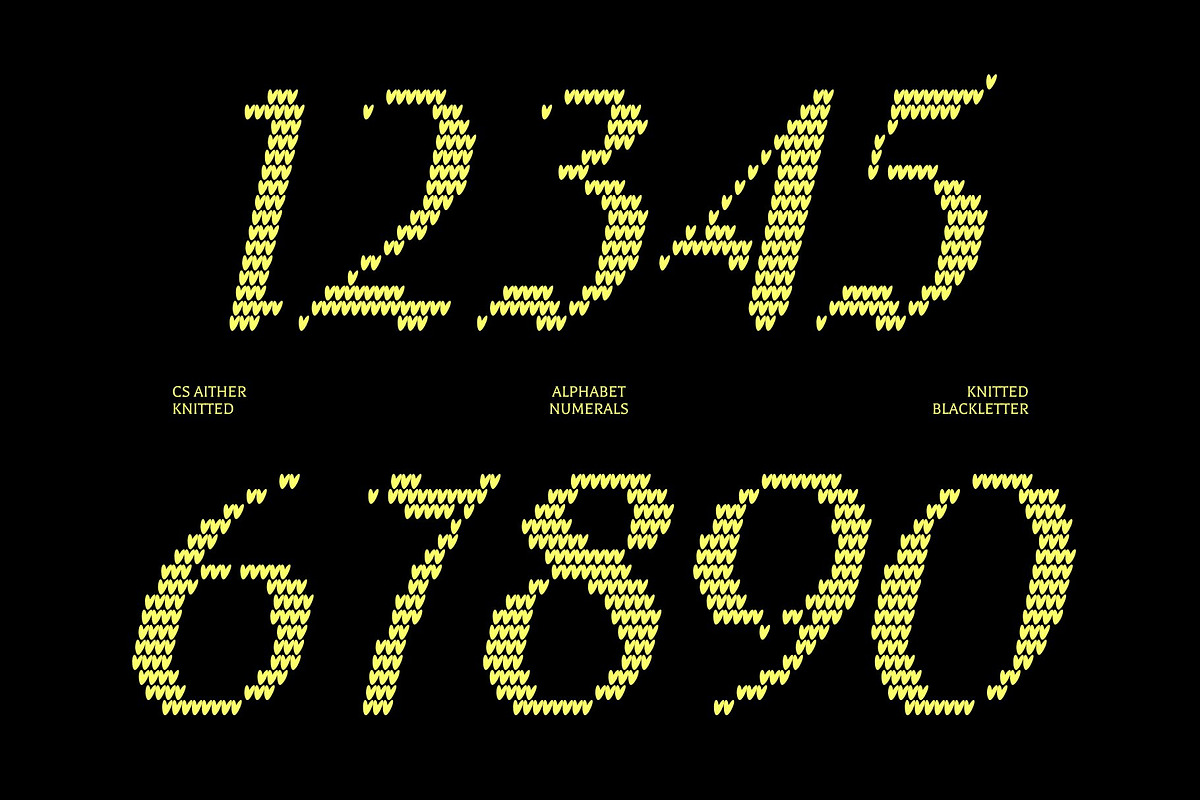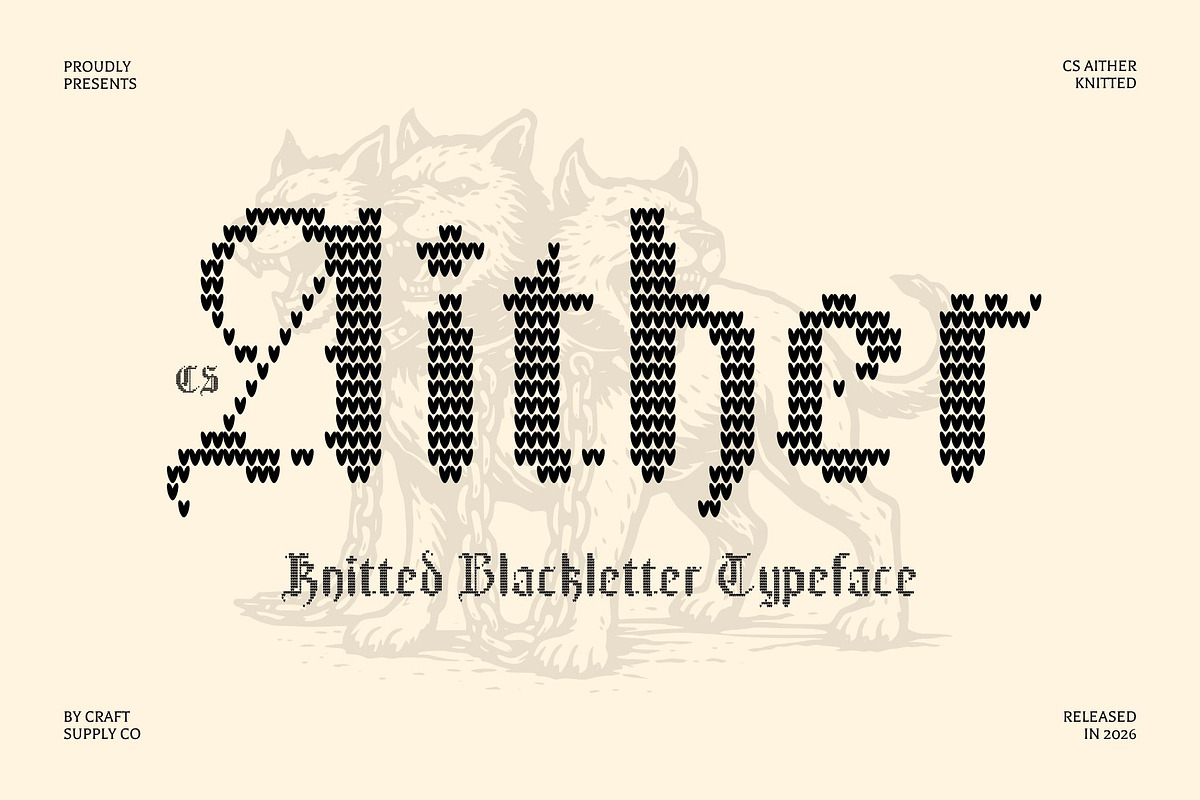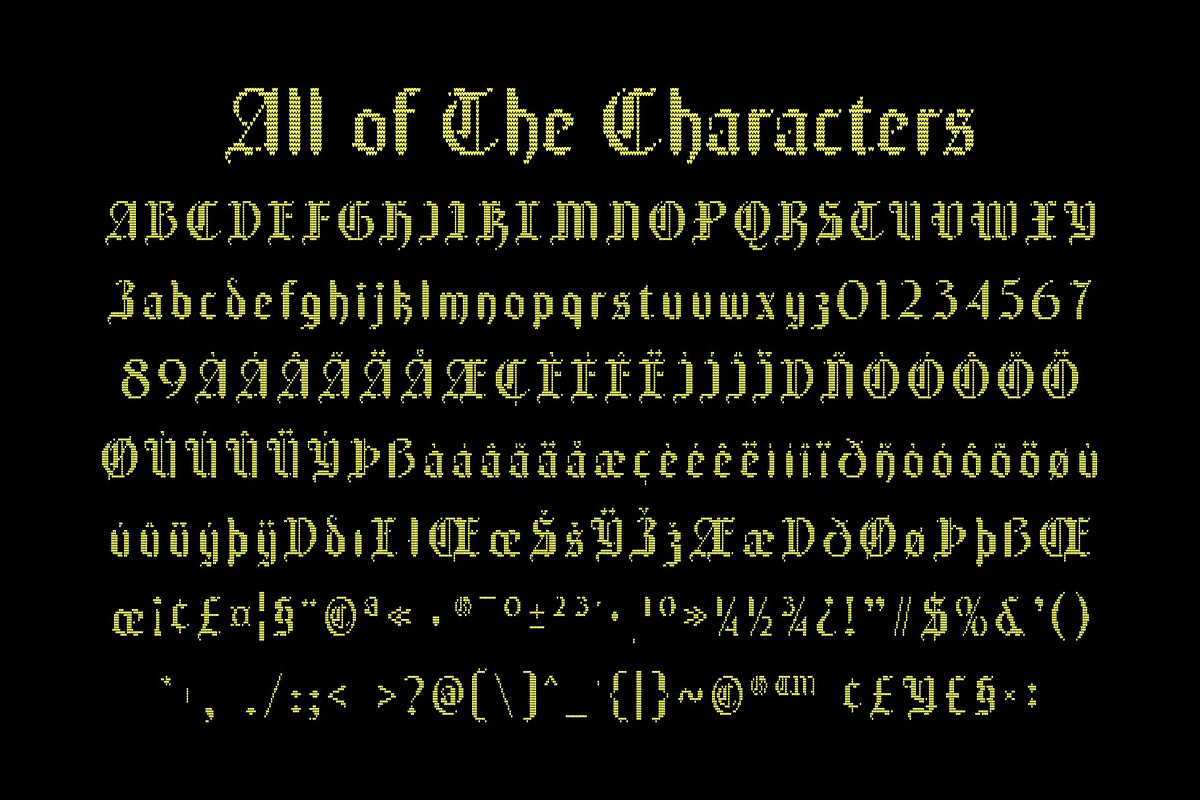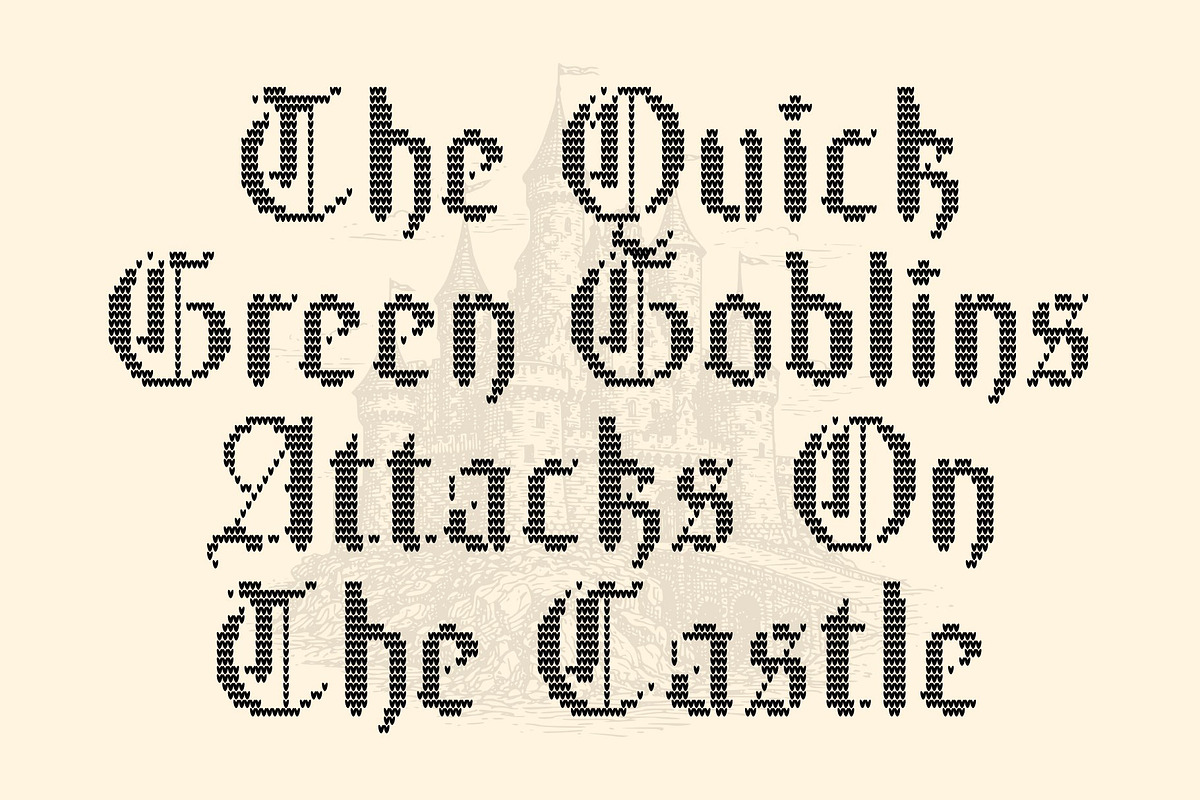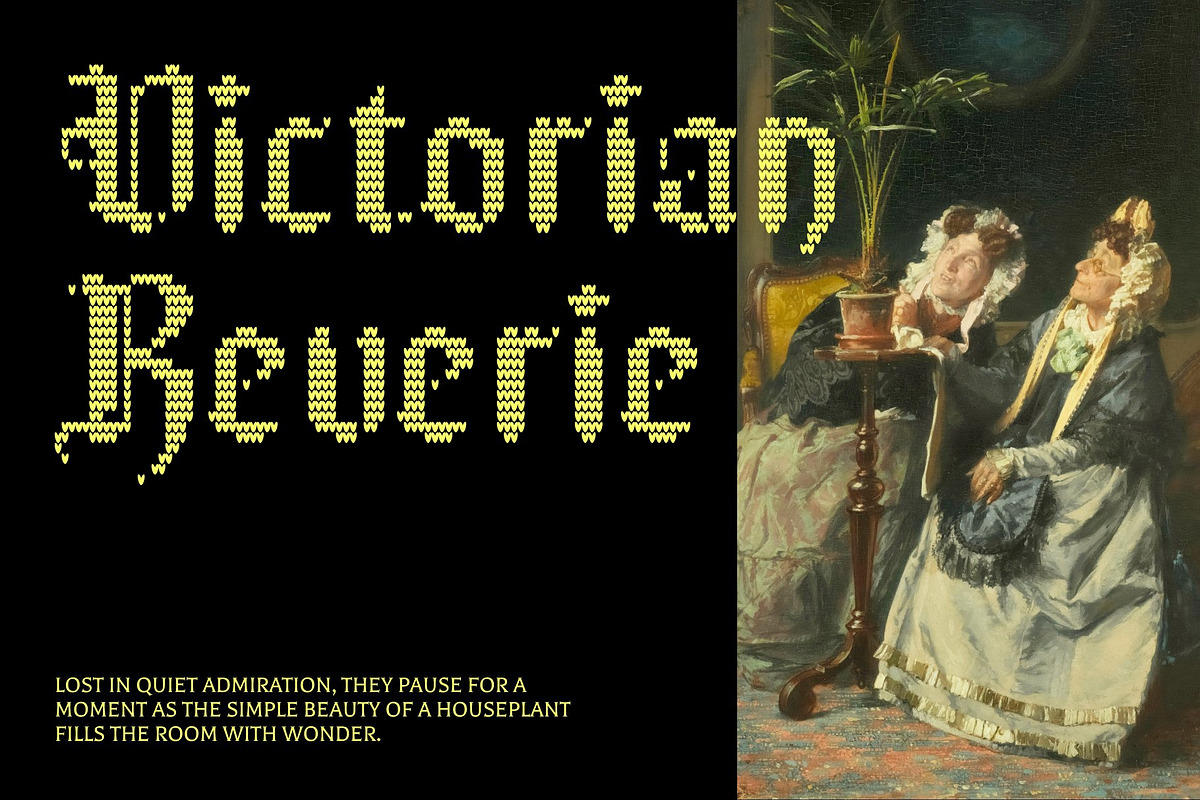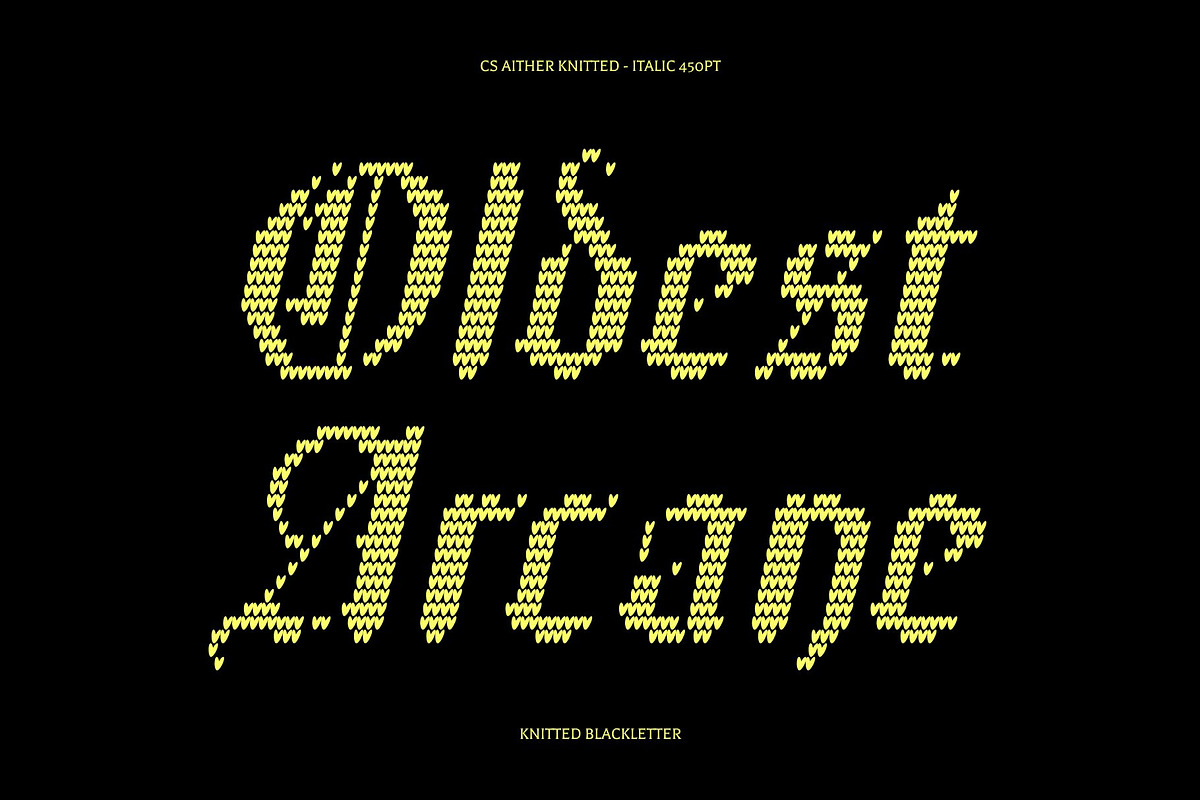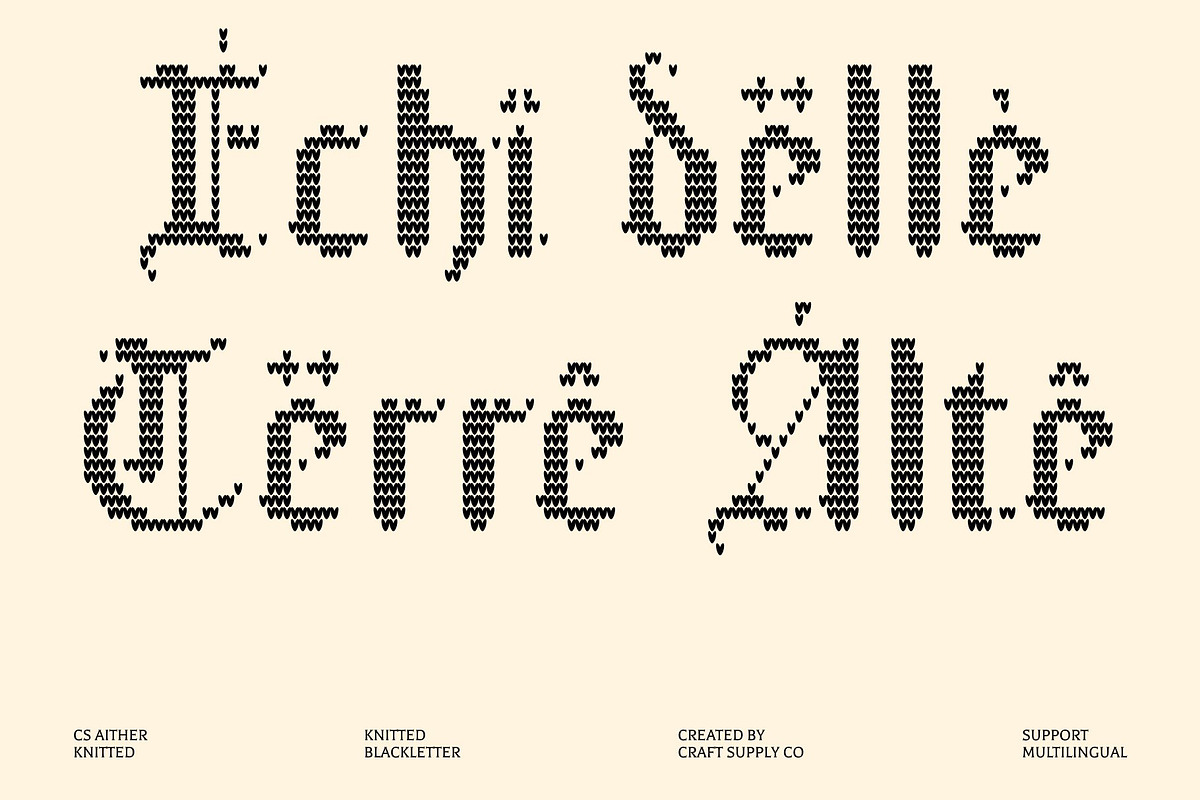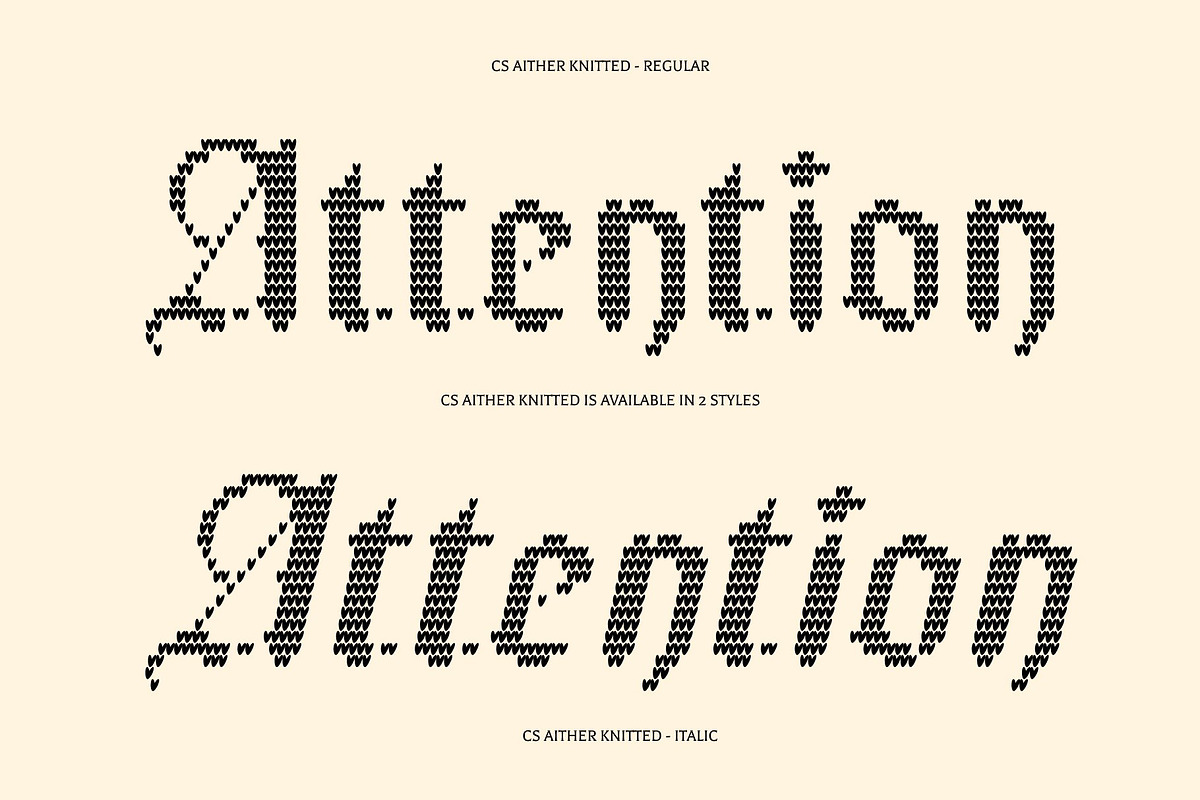
CS Aither Knitted
CS Aither Knitted – Blackletter Display Font: Where Gothic Heritage Meets Cozy Handmade Texture
Iconic Gothic Style with Historic Character This font is a distinguished display font crafted in the iconic Blackletter style, often known as Gothic or Old English. Featuring dramatic strokes, sharp details, and ornate letterforms, it captures the grandeur and craftsmanship of traditional medieval typography. Its bold and decorative appearance creates a strong visual presence filled with history, elegance, and character.
Knitted Effect with Warm Textile Texture This font is designed to resemble the texture of woven yarn found in sweaters, scarves, and handcrafted knitwear. Inspired by the looped construction of knitted fabric, this textured treatment adds warmth, softness, and a handcrafted quality to the bold Blackletter forms.
Traditional Craftsmanship Meets Handmade Charm This font creates a unique visual identity that bridges classic artistry and modern handmade aesthetics. Its ornate forms evoke heritage and authenticity, while the knitted texture introduces a welcoming and creative touch that makes designs feel more personal and memorable.
Perfect for Holiday, Handmade, and Craft-Inspired Designs Suitable for Christmas and holiday posters, handmade packaging, knitting and crochet brands, greeting cards, craft-inspired designs, seasonal campaigns and creative visual identities. Its distinctive knitted texture and Gothic character make it ideal for logos, headlines, titles, and display typography that seek to communicate tradition, craftsmanship, and warmth.
CS Aither Knitted Regular
CS Aither Knitted Italic